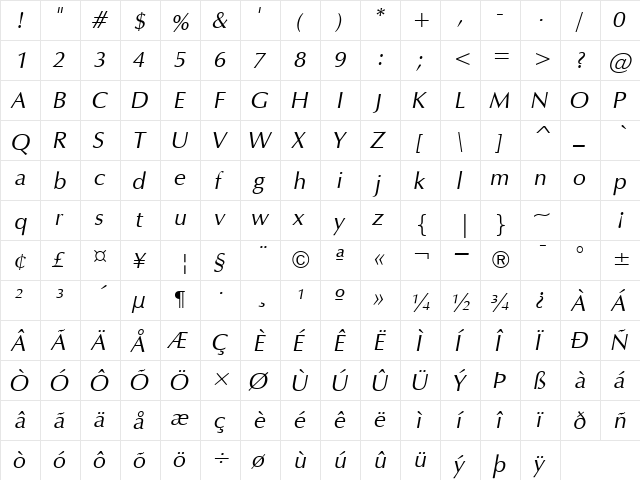
Vera Humana 95 Italic
Design Context for Vera Humana 95 Typeface
Vera Humana 95 is a composed and adaptable typeface that performs quietly and consistently across a wide range of design contexts. The dynamic lean of this cut emphasises speed and emphasis in any layout.
Pro Tip: Use Vera Humana 95 for emphasis, pull quotes, and subheadings where its slanted energy can add rhythm to the layout.